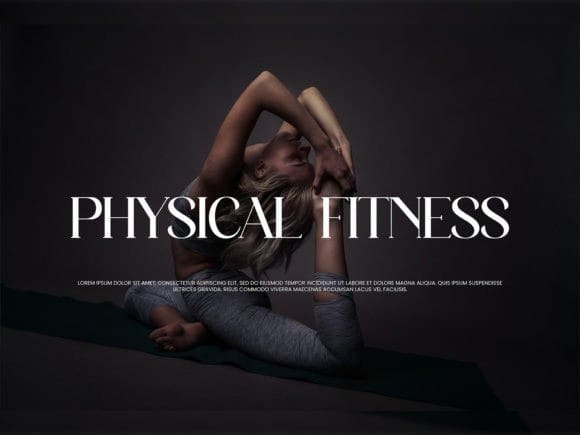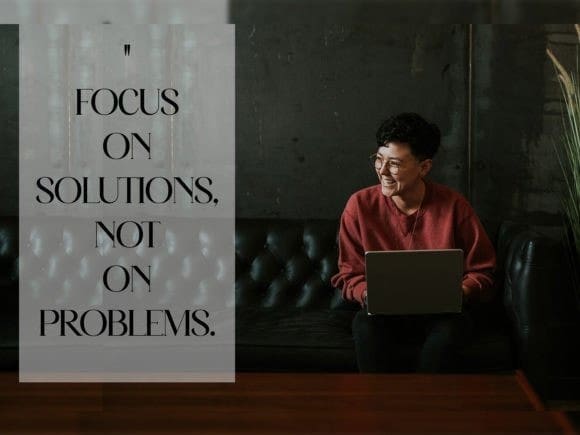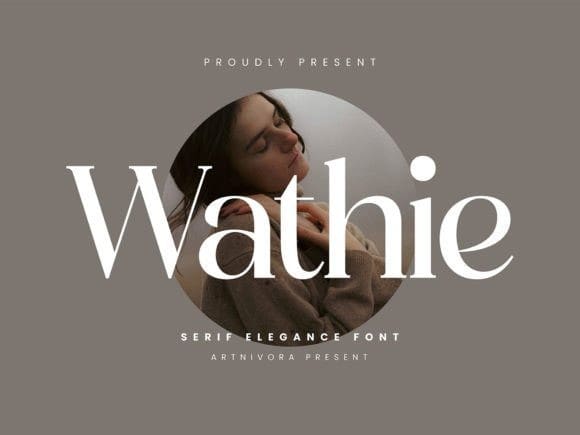
Wathie Font
Wathie Font, a Serif Elegant Font that adds a touch of sophistication to your projects. With its graceful curves and classic style, Wathie brings a timeless charm to your text. Perfect for creating an elegant and refined look, this font is a versatile choice for various design applications. Elevate your typography with Wathie’s simple yet stylish appeal, making it a go-to option for projects that demand a touch of elegance.